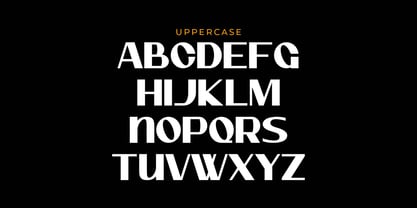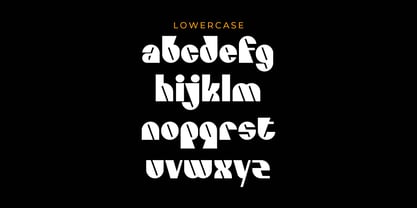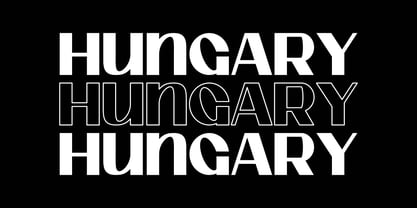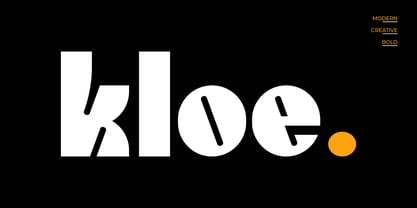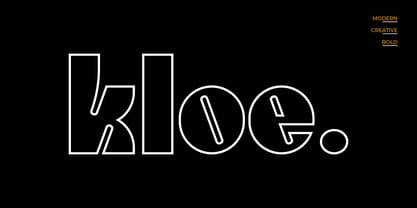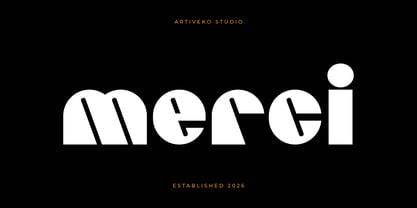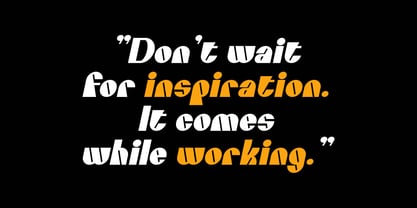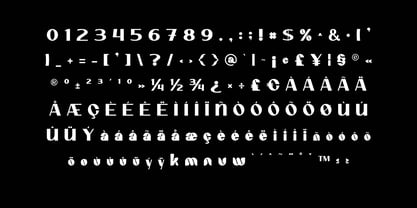
Kloe
by Artiveko
The Kloe Font Family was designed by Iwan Alwan and published by Artiveko. Kloe contains 2 styles and family package options. More about this family
Kloe is a bold display typeface crafted to deliver a strong, stylish, and modern visual impact. Featuring solid letterforms, clean lines, and balanced proportions, Kloe exudes a confident presence that captures attention in any design context. It is perfect for branding, logos, posters, packaging, advertising, and social media visuals. Kloe seamlessly combines bold strength with a refined contemporary aesthetic, ensuring readability while maintaining a distinctive and eye-catching appearance. This typeface is ideal for designers seeking bold typography with a modern edge, suitable for both print and digital applications. Kloe is more than just a font — it’s bold, clean, and designed to make a statement.
Artiveko is a font design team based in Indonesia, comprised of several talented font designers who commenced their careers in the font design industry in 2020. With a dedicated focus on crafting fonts, the team members bring their collective expertise and passion to every project they undertake. Situated in Indonesia, Artiveko draws inspiration from the vibrant cultural landscape of the region, infusing their creations with unique flavors and aesthetics.The team's font collection encompasses a diverse range of styles, including serif, sans serif, handwritten, and script typefaces. Each typeface is meticulously crafted to meet the demands of modern design while offering versatility and functionality across various applications. Whether it's the classic elegance of serif fonts, the contemporary appeal of sans serif designs, the personal touch of handwritten scripts, or the expressive flourishes of script fonts, Artiveko ensures that every font reflects their dedication to quality and innovation.Artiveko's fonts have garnered recognition and acclaim, with their works being featured on prominent social media platforms like Creative Market. Through these platforms, the team has been able to connect with a global audience of designers and typographers, further amplifying their reach and influence in the industry. Their fonts are celebrated for their impeccable craftsmanship, attention to detail, and ability to elevate design projects with style and sophistication.As Artiveko continues to evolve and expand its font collection, the team remains committed to pushing the boundaries of typography and setting new standards of excellence. With a relentless focus on creativity, innovation, and collaboration, Artiveko strives to inspire and empower designers around the world with their distinctive and versatile font designs.